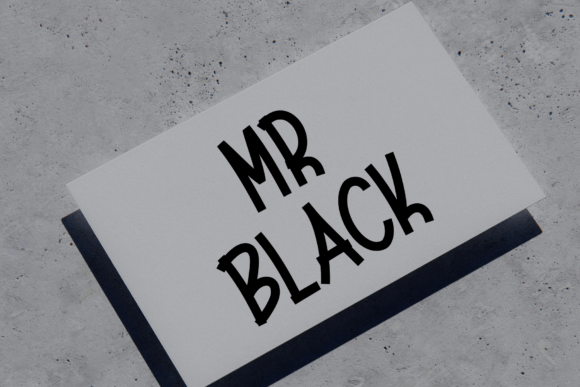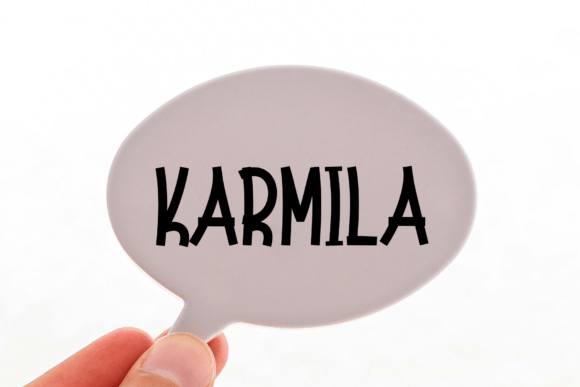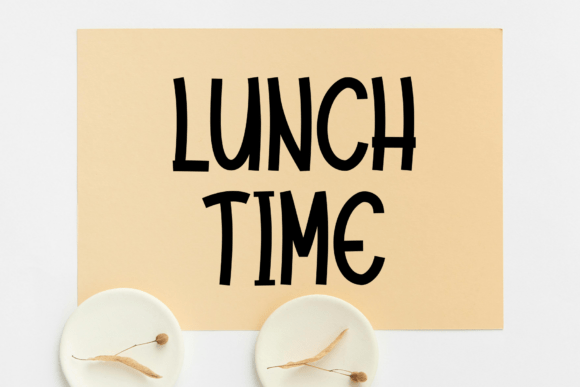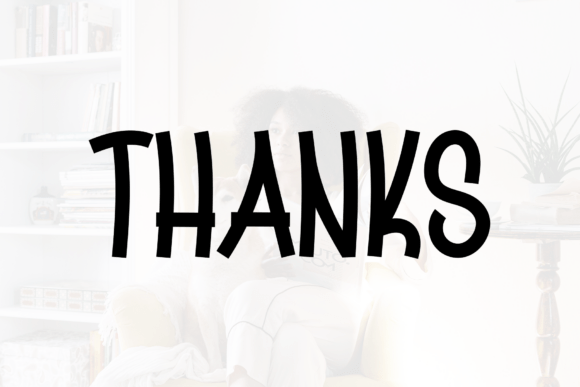
Introducing Anoting Font: Add a Touch of Whimsy to Your Designs
Are you tired of using the same old fonts in your design projects? Do you want to add a touch of personality and whimsy to your creations? Look no further than Anoting Font, a sweet and beautiful handwritten display font that’s sure to delight. In this article, we’ll take a closer look at Anoting Font, its features, and how you can use it to elevate your designs.
What is Anoting Font?
Anoting Font is a handwritten display font that’s perfect for adding a cozy accent to any design project. Its unique feature is that the characters dance along the baseline, giving it a playful and carefree feel. This font is ideal for designers and crafters who want to add a personal touch to their work, whether it’s for a branding project, a craft project, or simply for personal use.
Key Features of Anoting Font
- Handwritten display font: Anoting Font is a beautifully crafted handwritten font that’s perfect for display purposes.
- Characters dance along the baseline: The unique feature of Anoting Font is that the characters dance along the baseline, giving it a playful and whimsical feel.
- Cozy accent: This font adds a cozy accent to any design project, making it perfect for designers and crafters who want to add a personal touch to their work.
How to Use Anoting Font in Your Designs
Anoting Font is a versatile font that can be used in a variety of design projects, including:
- Branding projects: Use Anoting Font to add a personal touch to your brand’s identity, including logos, business cards, and letterheads.
- Craft projects: Add a touch of whimsy to your craft projects, such as handmade cards, scrapbooking, and DIY projects.
- Digital designs: Use Anoting Font in your digital designs, including social media graphics, blog posts, and website headers.
Tips for Using Anoting Font Effectively
Here are some tips for using Anoting Font effectively in your designs:
- Use it sparingly: Anoting Font is a display font, so use it sparingly to add emphasis to your design.
- Pair it with a simple font: Pair Anoting Font with a simple font to create contrast and make your design stand out.
- Experiment with colors: Experiment with different colors to find the perfect combination that works with your design.
Anoting Font is a beautiful and unique handwritten display font that’s perfect for adding a touch of whimsy to your designs. Its playful and carefree feel makes it ideal for designers and crafters who want to add a personal touch to their work. With its ease of use and versatility, Anoting Font is a great addition to any design project. So why not give it a try and see how it can elevate your designs?